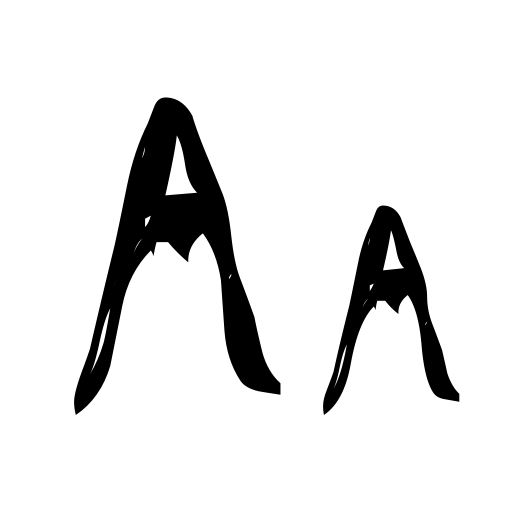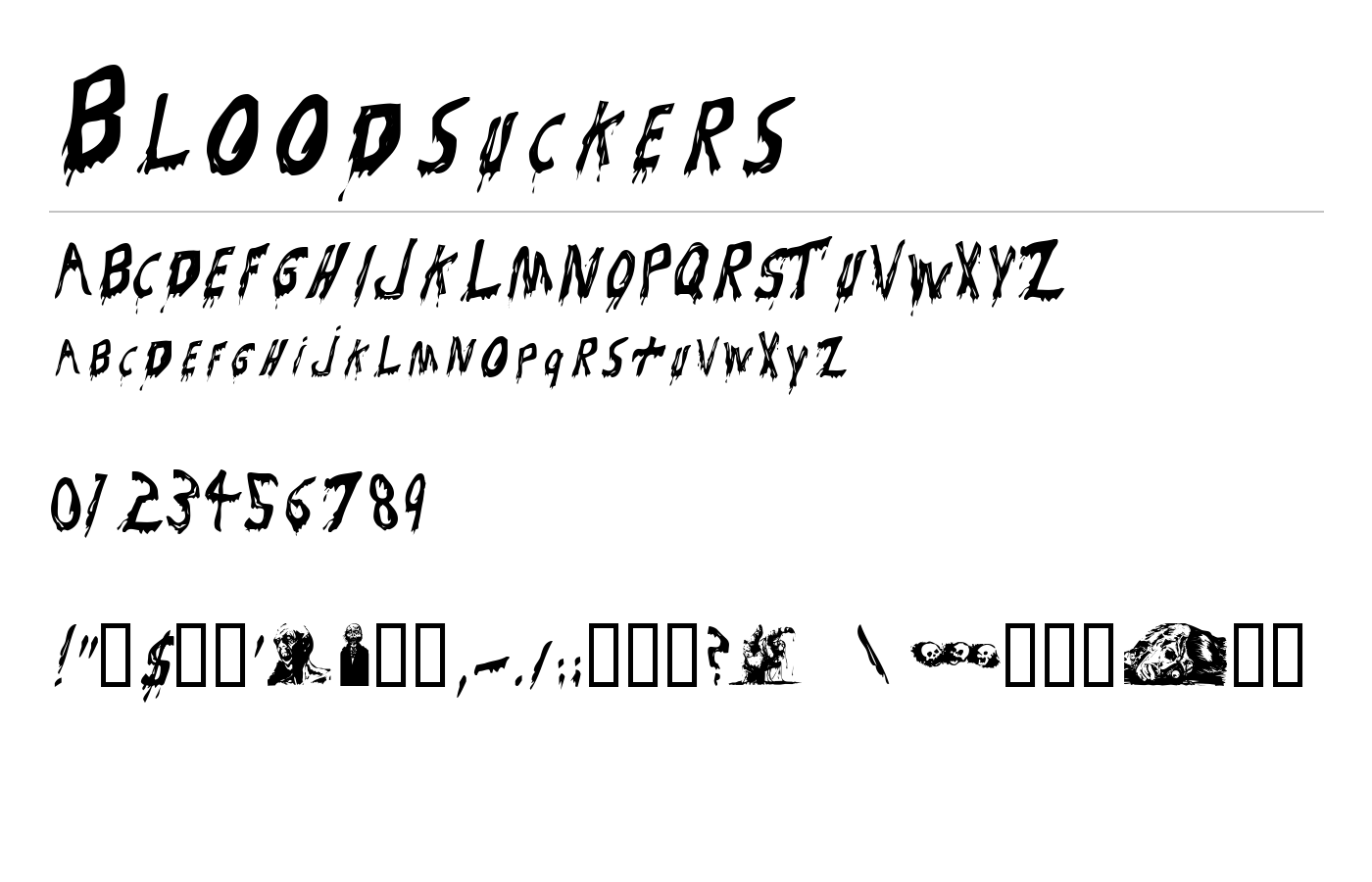
Bloodsuckers is a bold, condensed display font with a spooky, dripping effect that gives it a horror-themed, eerie feel. Its irregular, jagged strokes and uneven letterforms evoke a sense of suspense and fear, making it perfect for Halloween designs, horror movie posters, or any project looking to create a chilling atmosphere. This font’s dramatic personality works best in attention-grabbing headlines and decorative uses rather than body text.
Bloodsuckers Font